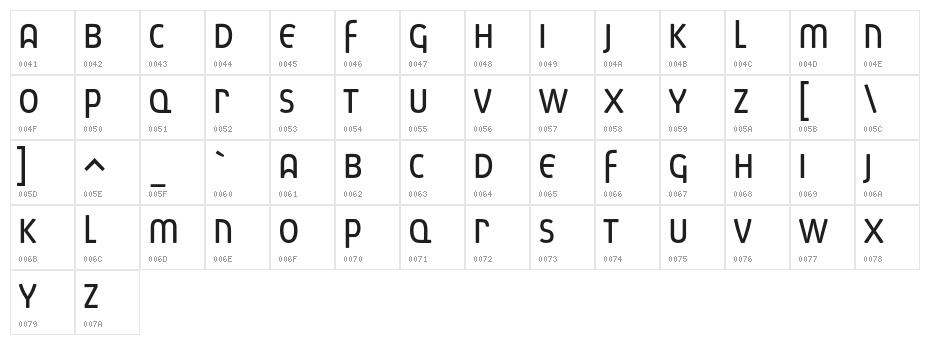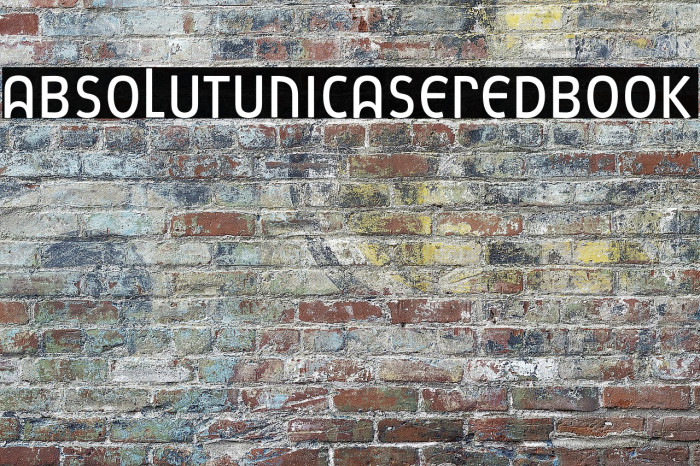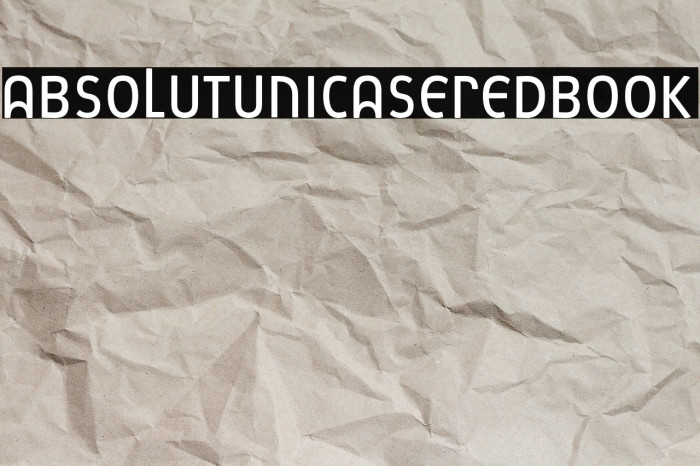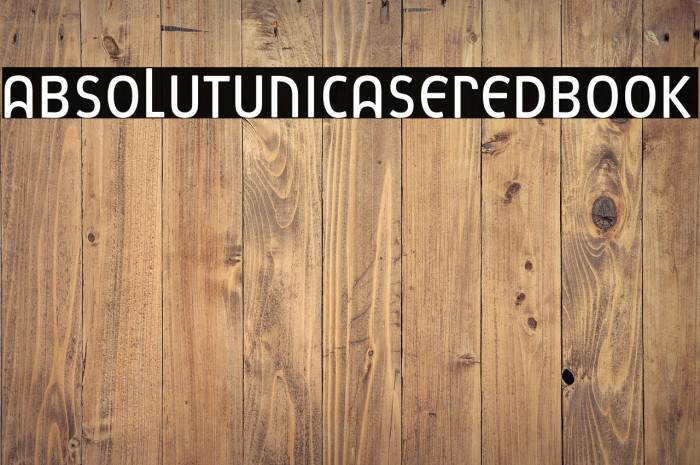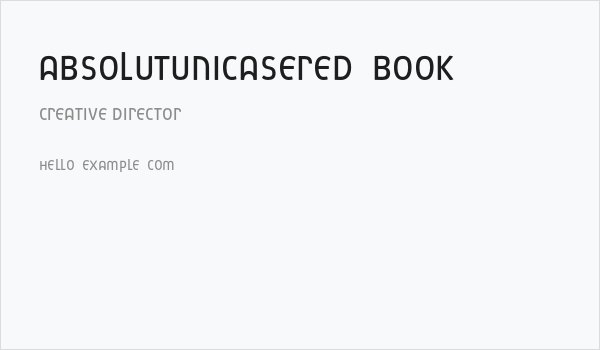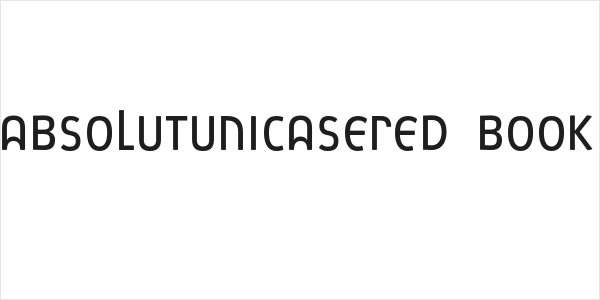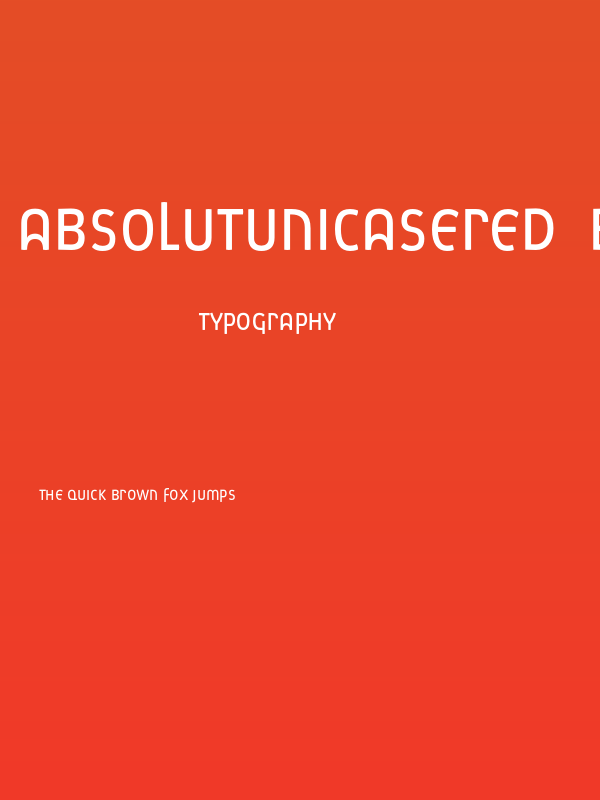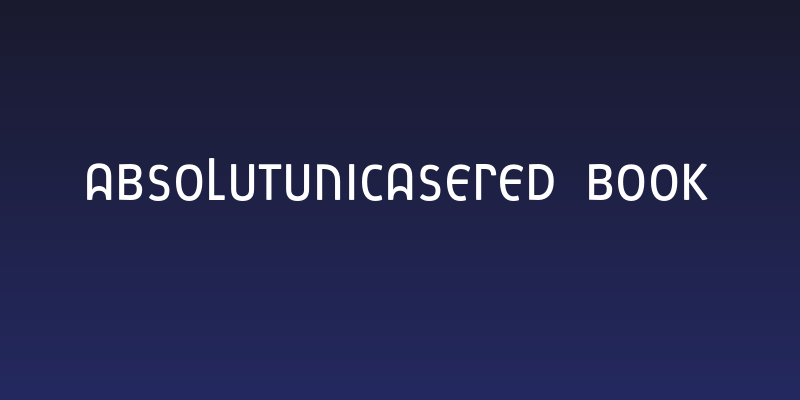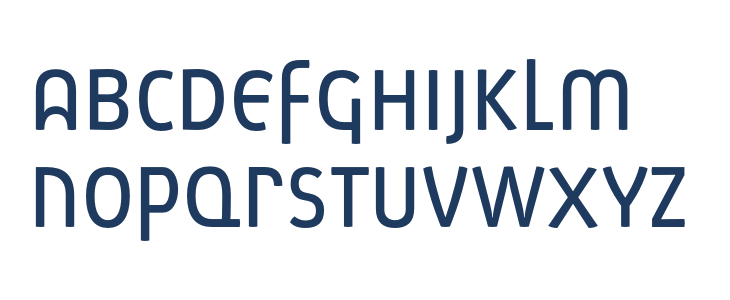
AbsolutUnicaseRed-Book Font
AbsolutUnicaseRed-Book Description
This font features a modern and clean design with a unique unicase style, where uppercase and lowercase letters share the same height, creating a uniform appearance. The characters are rounded and smooth, contributing to a friendly and approachable look. The font maintains a consistent stroke width throughout, providing a balanced and harmonious feel. Its geometric shapes and minimalistic design make it versatile for various applications, offering a contemporary aesthetic that is both stylish and functional.
| Use Case | Headlines, Logos, Branding |
| Proposed Projects | Ideal for branding, advertising, and digital media projects that require a modern and cohesive look. |